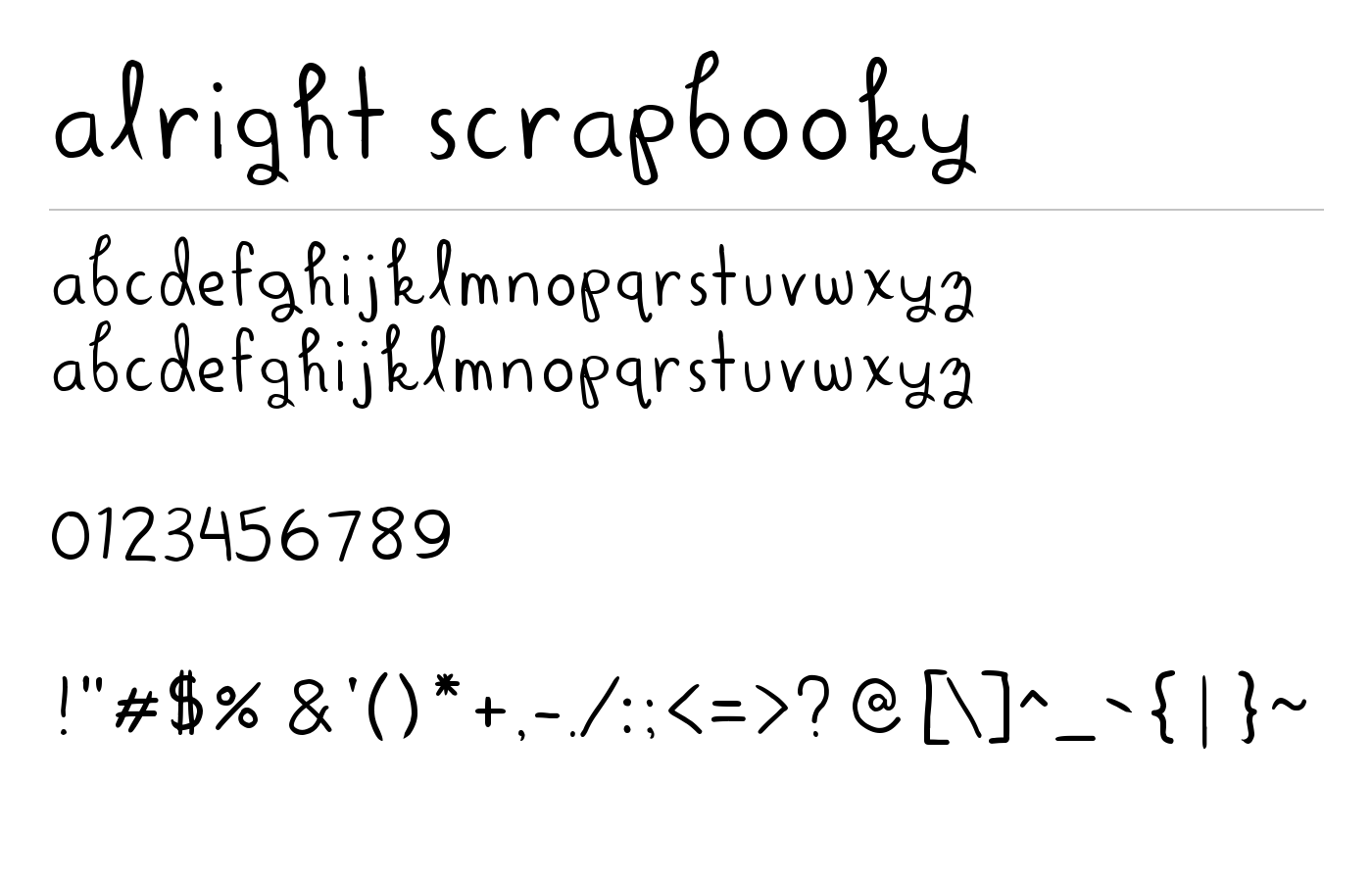
Alright Scrapbooky is a playful, handwritten sans serif font with a casual and friendly vibe. Its light weight and irregular strokes give it an organic, hand-drawn feel perfect for creative projects, scrapbooking, or informal branding. This font works well in headlines, invitations, and designs that aim to convey warmth and approachability.
Alright Scrapbooky Font
About Alright Scrapbooky Font
| Font family | Alright Scrapbooky Font |
| Designer | Denise Bentulan |